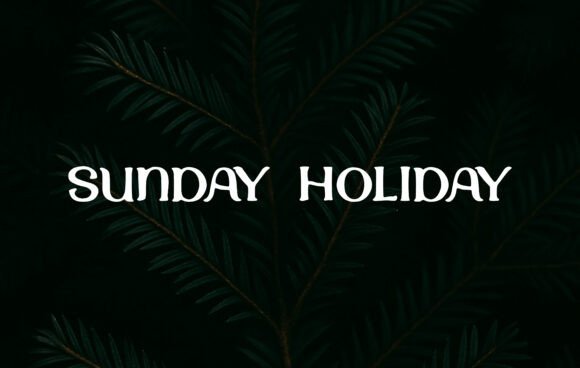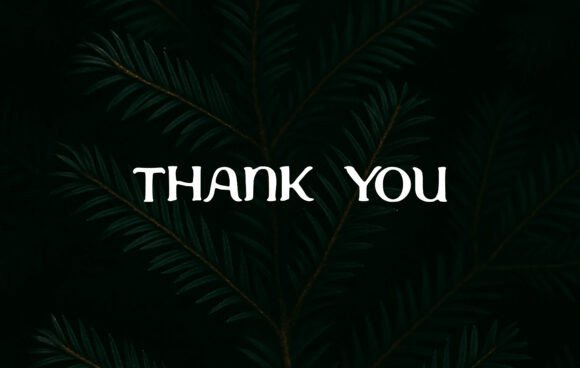
Introduction to Neruda Font
As a designer, have you ever been stuck in a creative rut, struggling to find the perfect font to bring your project to life? I know I have. But then, like a breath of fresh air, you stumble upon a font that just clicks. For me, that font was Neruda. This stunning font has been a game-changer in my design process, and I’m excited to share its story with you.
Neruda Font is more than just a pretty face – it’s a high-quality design resource that’s perfect for any creative project. Whether you’re working on a magazine headline, a social media campaign, or a wedding invitation, this font is sure to impress. And the best part? It’s available for free download, making it an accessible addition to any design arsenal.
With its transparent background and sleek, modern aesthetic, Neruda Font is the perfect choice for designers who want to take their work to the next level. So why settle for a bland, generic font when you can elevate your design with the elegance of Neruda?
Key Features of Neruda Font
- Features a unique, elegant design with a transparent background, allowing for easy customization and layering.
- Includes a wide range of characters, including uppercase and lowercase letters, numbers, and punctuation marks.
Honest Review: Neruda Font
As a designer, I’m always on the lookout for high-quality fonts that can elevate my creative projects. I recently came across the Neruda Font, and I must say, it’s been a game-changer. The free download was a major plus, and the transparent background made it easy to integrate into my design.
- ✨ Unique and elegant design aesthetic
- ✨ Highly legible and clear even at small sizes
- ✨ Perfect for titles and headings in creative projects
- ⚠️ Limited language support, which may be a concern for international projects
- ⚠️ Not as extensive a character set as some other fonts, which may require additional font pairing
Overall, I’m impressed with the Neruda Font. Its high quality and unique design make it a valuable addition to any designer’s toolkit. While it may not be perfect, it’s a great resource for creative projects that require a touch of elegance.
Neruda Font
The Neruda Font is a versatile design resource that can elevate any creative project. With its high-quality typography, you can create stunning visual elements for your next design project.
Using Neruda Font in Design Applications
- Combine the Neruda Font with other design elements, such as graphics and images, to create a unique and engaging design.
The Neruda Font is perfect for a variety of creative projects, including:
- Brand identity and marketing materials
- Website design and development
- Graphic design and visual arts
- Document design and editing
Alternatives to Neruda Font
The Great Vibes Font is a beautiful, elegant script font that is perfect for creative projects that require a touch of sophistication. It’s ideal for use in wedding invitations, event branding, and other high-end design projects. Great Vibes Font is a high-quality design resource that can be downloaded for free and features a transparent background, making it easy to customize.
Great Vibes Font is similar to Neruda Font in its elegant and sophisticated feel, but it has a more refined and delicate appearance. It’s a great alternative for designers who want to add a touch of luxury to their creative project without the need for intricate details.
The Alex Brush Font is a beautiful, handwritten script font that is perfect for use in creative projects that require a personal and emotive touch. It’s ideal for use in branding, packaging, and other design projects where a unique and personalized feel is required. Alex Brush Font is a high-quality design resource that can be downloaded for free and features a transparent background.
Yes, the Neruda Font has a transparent background, making it suitable for use on images or designs with complex backgrounds. The font’s transparent background allows for seamless integration with other design elements.